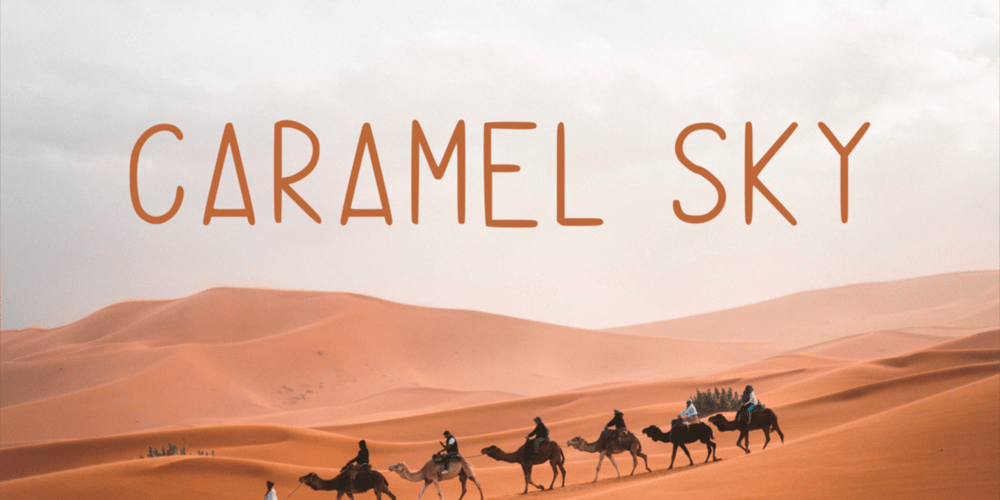
Caramel Sky
Caramel Sky font
Caramel Sky Font Family was designed by Alessa Jo and published by Melonaqua. Caramel Sky contains 5 styles and family package options. Caramel Sky is a naturally handwritten font that comes with 5 different styles. This design was inspired by blackboard menu penmanships found on coffee shops. A fun and spontaneous typeface suitable for various home or business projects.